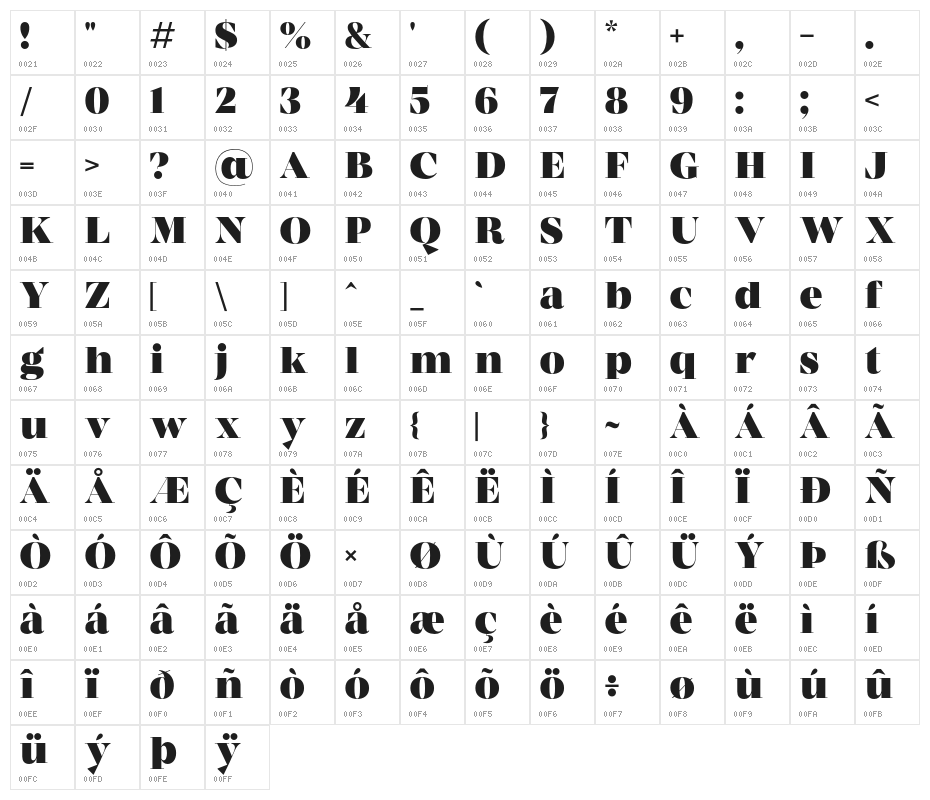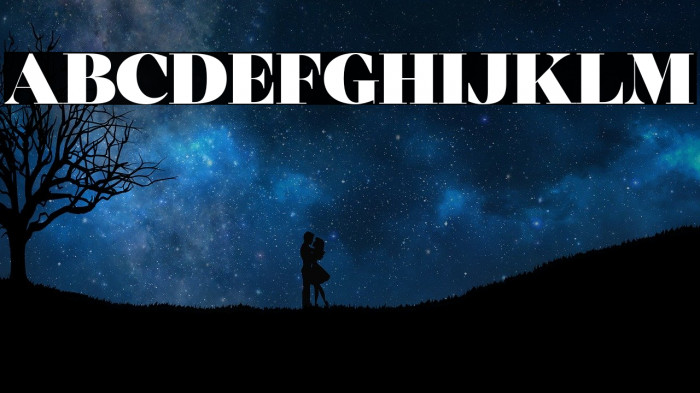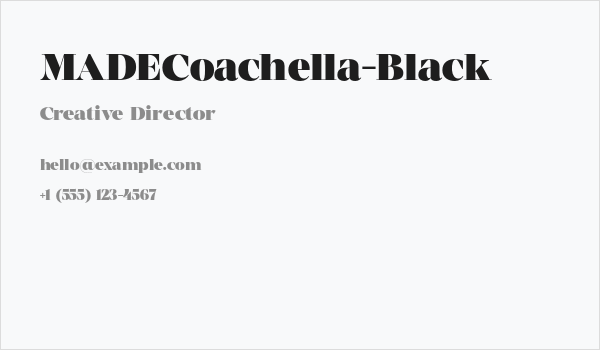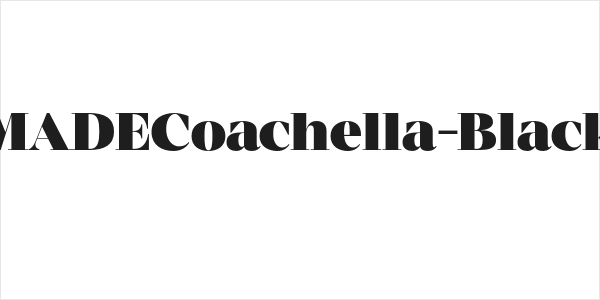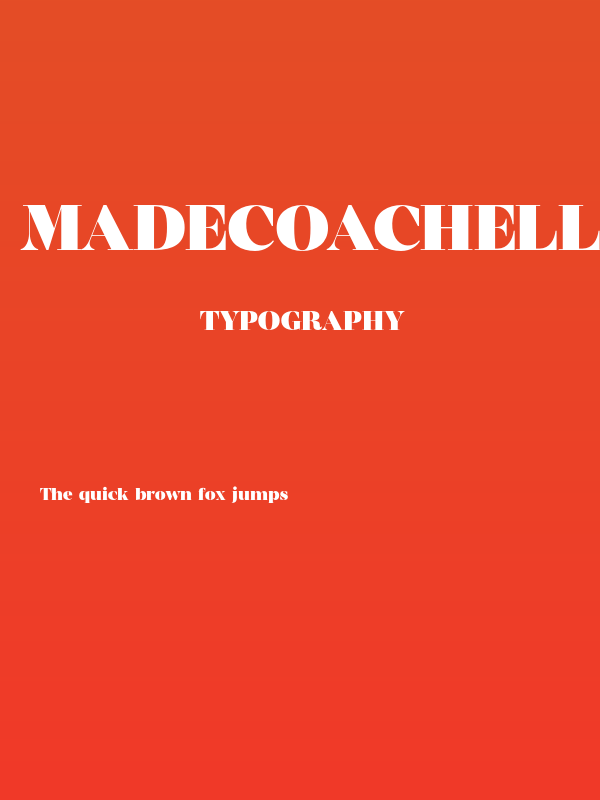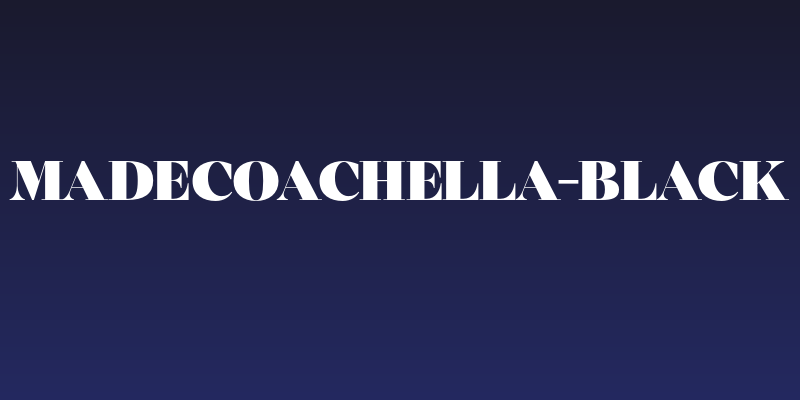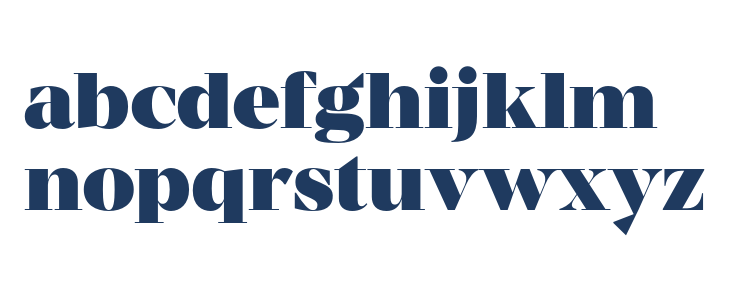
MADECoachella-Black Font
MADECoachella-Black Description
This font features a bold and striking design with high contrast between thick and thin strokes, giving it a dramatic and impactful appearance. The uppercase letters are particularly prominent, with sharp serifs and a strong vertical emphasis. The lowercase letters maintain a consistent style, offering a cohesive look across different text sizes. The numerals are equally bold, ensuring readability and visual balance. Special characters are designed with the same attention to detail, making them suitable for various applications. Overall, this font exudes a modern yet timeless appeal, ideal for making a statement in any design project.
| Proposed Projects | Ideal for branding, headlines, posters, and editorial design where a strong visual impact is desired. |